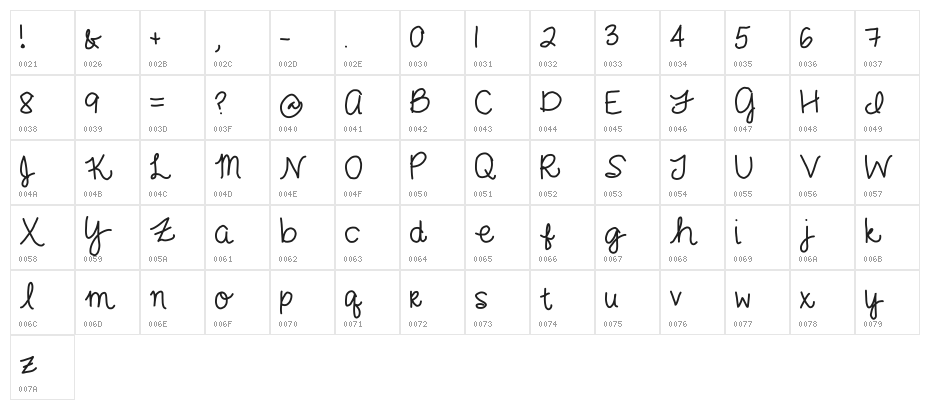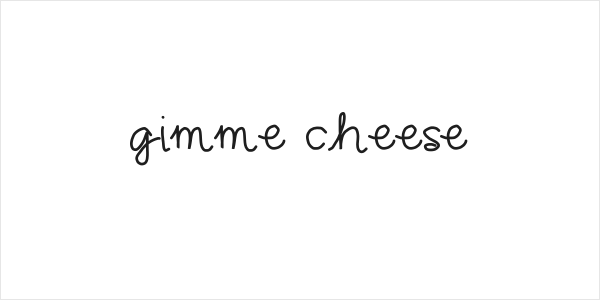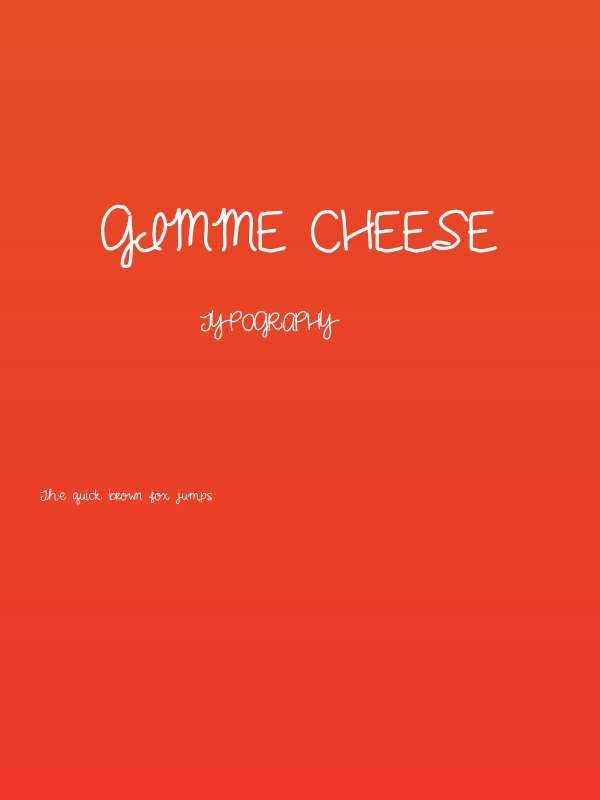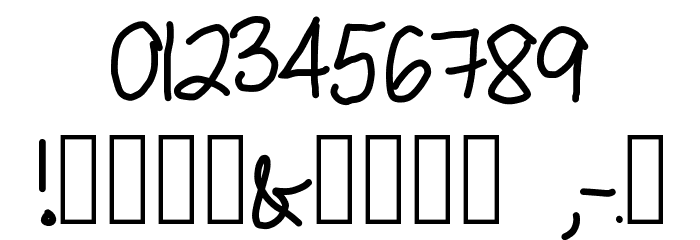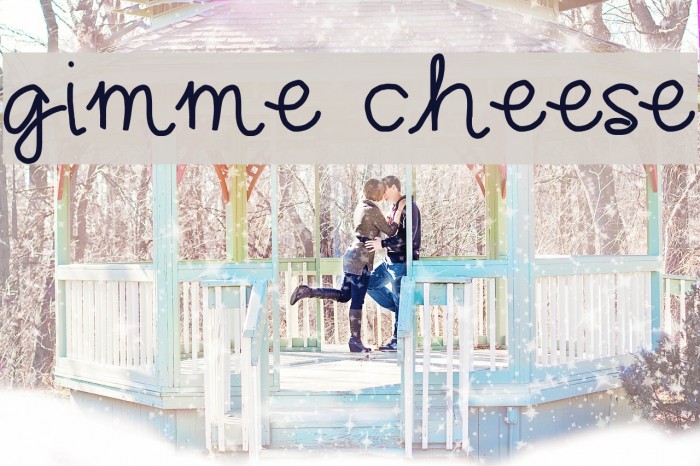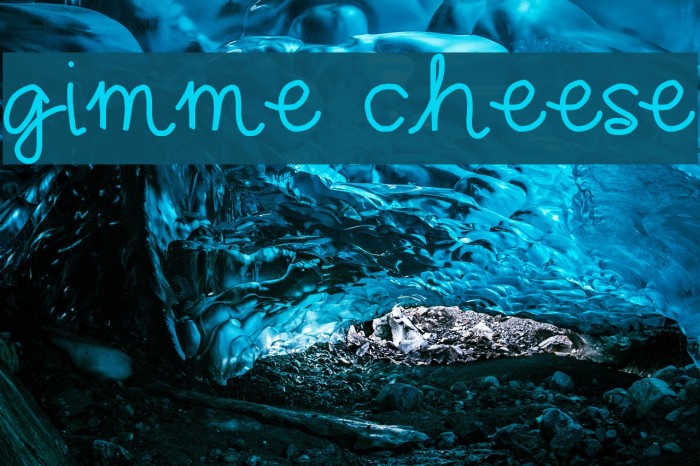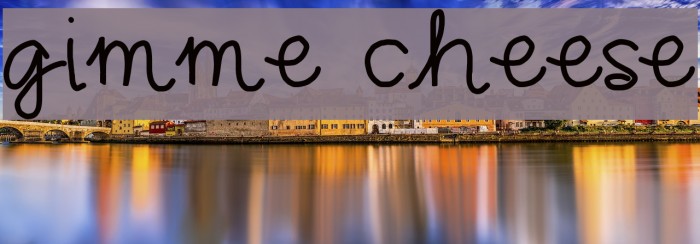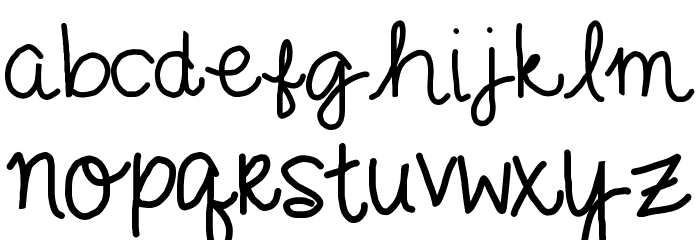
gimme cheese Font
gimme cheese Description
This font features a playful and casual handwritten style, characterized by its smooth, flowing lines and slightly irregular letterforms that mimic natural handwriting. The uppercase and lowercase letters maintain a consistent style, with rounded edges and a slight slant, giving it an informal and friendly appearance. The numerals and special characters follow the same aesthetic, ensuring a cohesive look throughout. The overall design is approachable and versatile, suitable for projects that require a personal touch or a relaxed vibe.
| Overall Style | Casual, Playful |
| Use Case | Headlines, Informal text, Personal projects |
| Proposed Projects | Ideal for greeting cards, invitations, personal branding, casual blog headers, and social media graphics. |